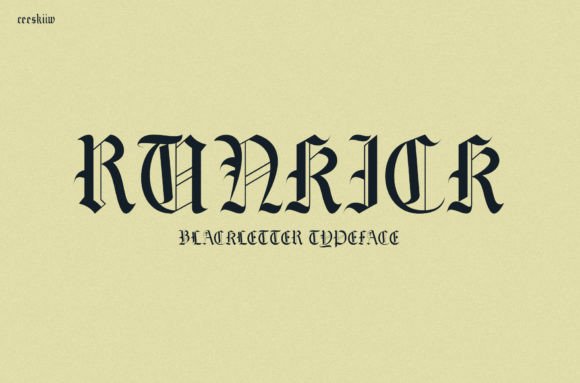
Journey into the Realm of Runkick: A Timeless Blackletter Font for Designers with Audacity
In the realm of typography, where letters dance and stories unfold, there exists a font that embodies the essence of boldness, daring, and vintage charm - Runkick. This blackletter masterpiece, forged by the creative genius of Ceeskiiw, beckons you to unlock a world of limitless design possibilities.
Crafted with meticulous precision, Runkick exudes an aura of timeless elegance. Its intricate lines, reminiscent of ancient manuscripts, evoke a sense of history and authenticity. The strokes, both thick and thin, create a captivating contrast that draws the eye and adds depth to your designs.
With Runkick as your typographic weapon, you'll conquer the hearts of your audience. Its bold and commanding presence makes it the perfect choice for logos, posters, flyers, and any project that demands attention. Unleash your creativity and let Runkick elevate your designs to new heights of sophistication and impact.
But Runkick is more than just a visually stunning font; it's a gateway to a world of vintage allure. Its classic blackletter style evokes a sense of nostalgia, transporting you back to an era of romance, adventure, and timeless beauty. Whether you're designing a retro poster, a vintage-inspired logo, or a captivating social media campaign, Runkick will add a touch of timeless charm that resonates with your audience.
Dare to be different, dare to be bold. Choose Runkick and witness the transformative power of typography. Let your designs speak volumes, capturing the imagination of your audience and leaving a lasting impression that lingers in their minds.
Runkick - The Epitome of Vintage Design:
* Embark on a typographic journey through time with Runkick, a blackletter font that exudes vintage charm and sophistication.
* Its intricate lines and commanding presence make it the perfect choice for logos, posters, and designs that demand attention.
* Transport your audience to a world of nostalgia and romance with Runkick's timeless appeal.
* Unleash your creativity and let Runkick elevate your designs to new heights of impact and engagement.
Experience the Runkick difference today and discover the boundless possibilities that await you in the realm of typography.